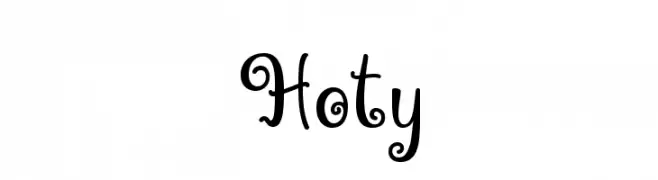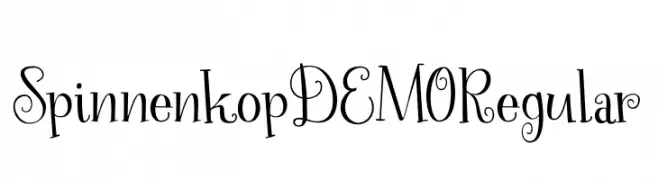
( Fonts by Mycandythemes )
A whimsical script font with flowing, curly strokes and playful loops.
( 7NTypes - Situjuh Nazara - 7ntypes.com )
A playful and whimsical font with curly, decorative elements.
( Ana Perestrelo - anaperestrelo.bigcartel.com )
A whimsical, playful handwritten font with curly, flowing lines and a charming aesthetic.
( ArchiFont - Gabriele Archibugi )
A whimsical, hand-drawn font with curly, vine-like strokes.
( Fat Cat Fonts - Jennifer Dickert - www.fatcatfonts.com/ )
A whimsical, decorative font with curly, swirly elements and playful character designs.
( Gaelleing )
A whimsical and playful font with curly, flowing letterforms.
( Hanoded - David Kerkhoff - www.hanodedfonts.com )
A whimsical and playful font with curly, decorative elements.
( Ideas and Apps - Angel García Rubio - www.ideasandapps.com )
A whimsical and playful font with curly, looping strokes and decorative swirls.
( JBFoundry - Jean Boyault - jean.boyault.pagesperso-orange.fr/ )
A playful and whimsical script font with curly, looping strokes and decorative flourishes.
( JOEBOB graphics - Joe vanderHam - www.joebob.nl )
An ornate, curly decorative font with swirling embellishments.